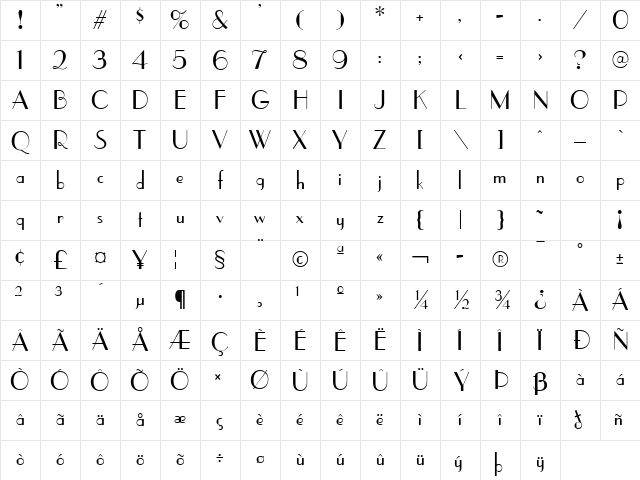
Picton Regular
Design Context for Picton
Picton is a composed and adaptable typeface that performs quietly and consistently across a wide range of design contexts.